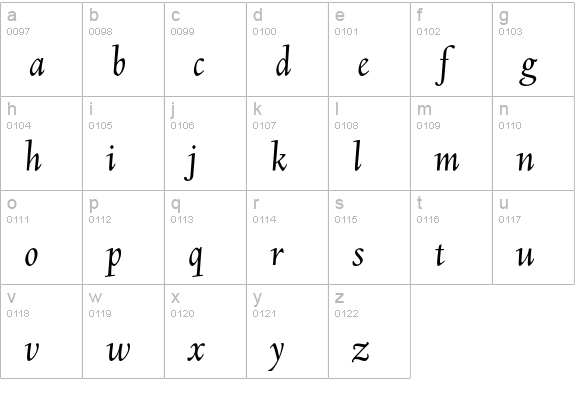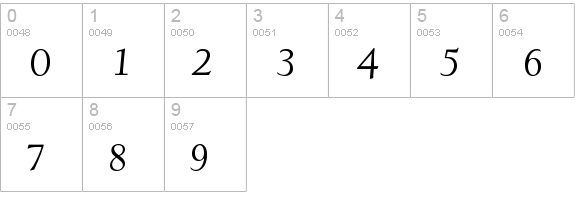
Deepdene BQ Italic Font Details
Deepdene BQ Italic is a distinctive, italic variant in the Deepdene typeface family \xE2\x80\x94 well suited to design and typography projects.
Deepdene BQ Italic font is a modern and elegant typeface, perfect for adding a touch of sophistication to your designs. Its sleek and stylish italicized characters make it ideal for use in headings, titles, and other prominent text elements. With its clean lines and graceful curves, Deepdene BQ Italic exudes a sense of refinement and class. The best part? This stunning font is available for free download at FontsMarket.com. Whether you're working on a branding project, designing a website, or creating printed materials, Deepdene BQ Italic is sure to elevate your work to the next level. Don't miss out on the opportunity to enhance your designs with this beautiful typeface – download Deepdene BQ Italic today and see the difference it can make!